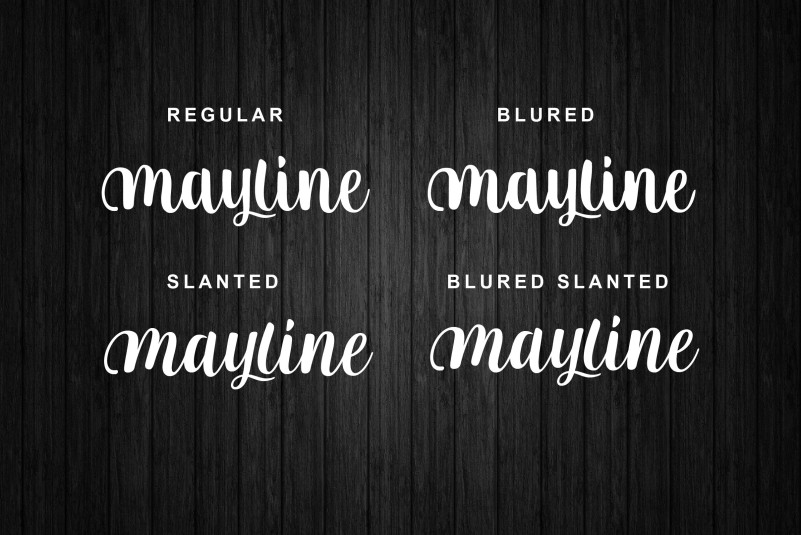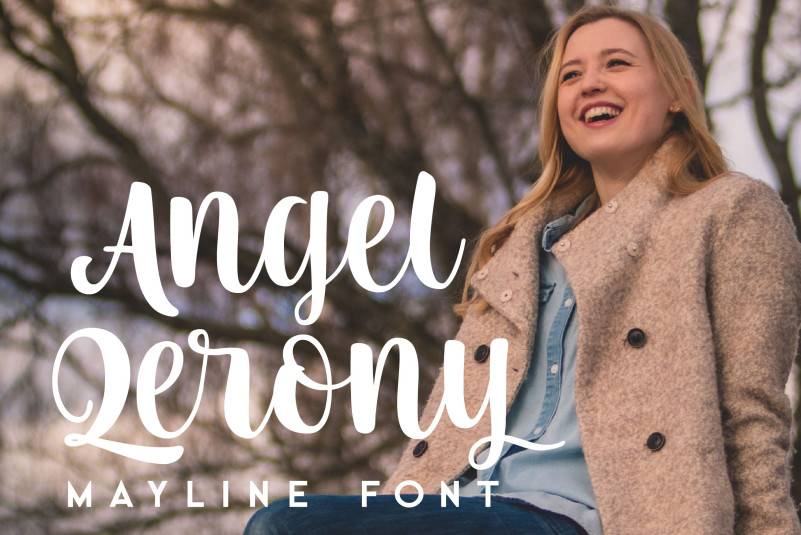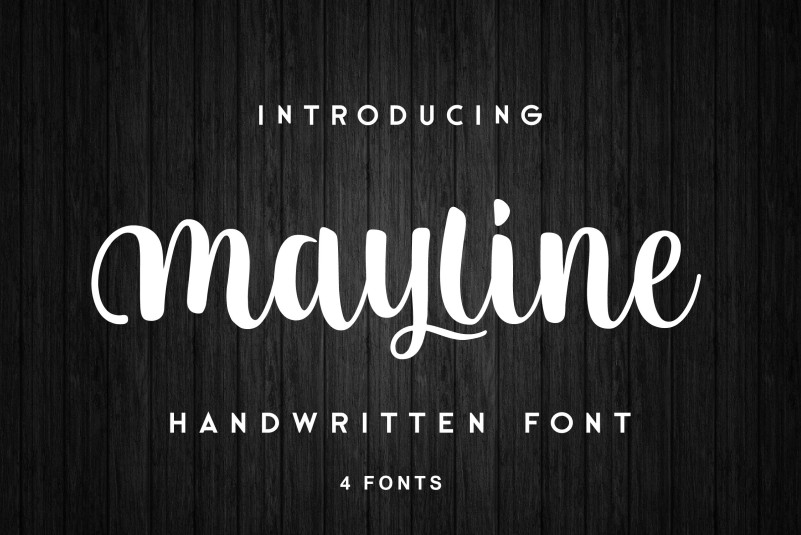
Mayline Font
Mayline Script Font is a classy, sophisticated script font that exudes sophistication and elegance. It’s the stylish alternative that makes this incredibly rich font the perfect match for any project.
– Uppercase, Lowercase, Numeral & Punctuation
– Alternate Letters, Ligature & Swash/Tail